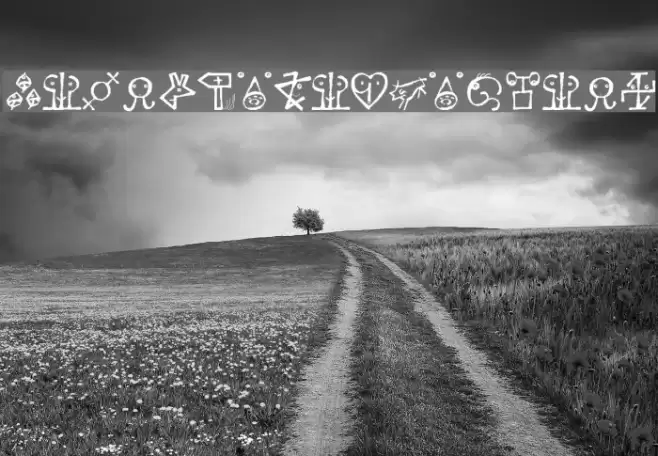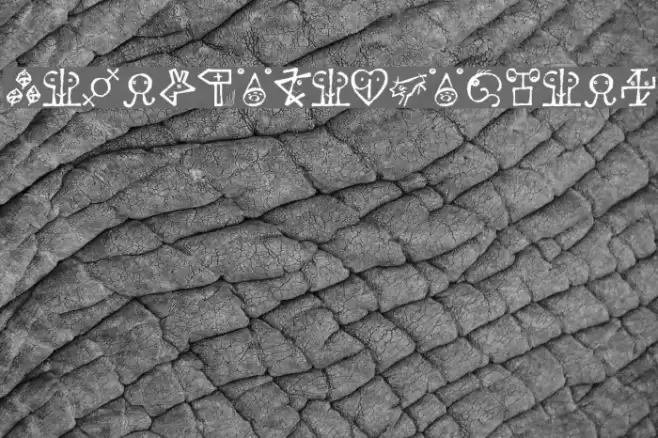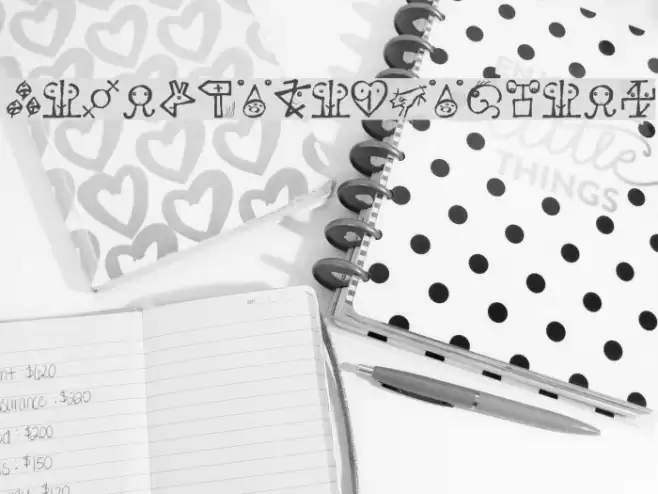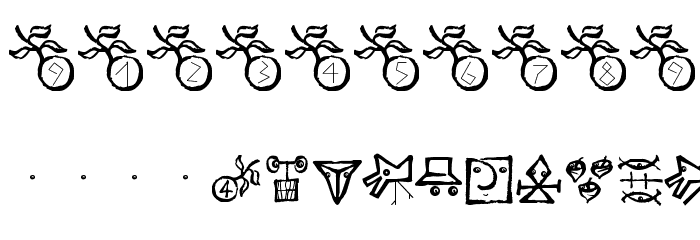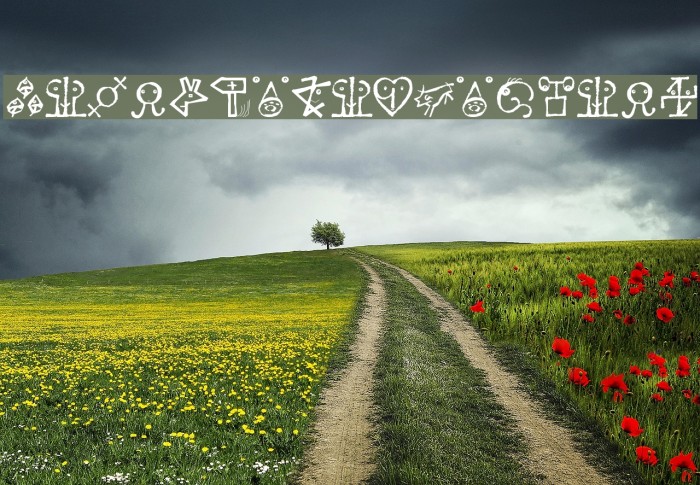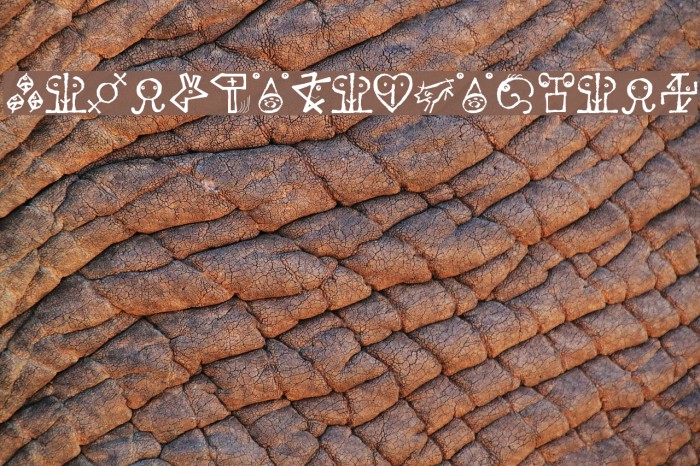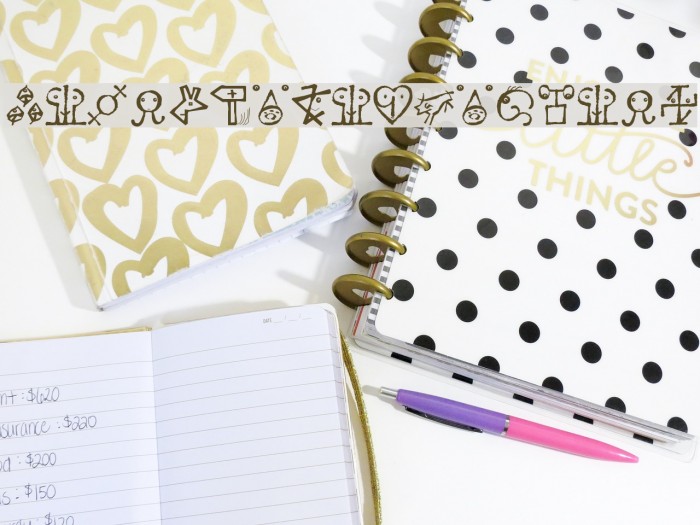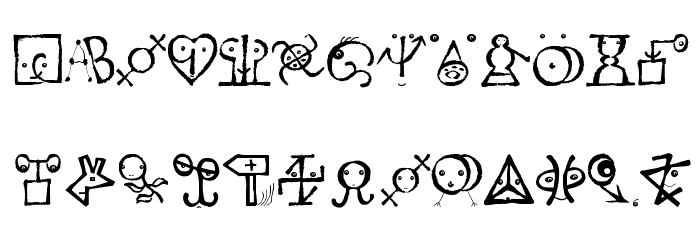
VectorizedSignets Font
VectorizedSignets Description
This collection features a series of highly stylized, abstract symbols that resemble ancient or tribal signets. Each character is unique, with intricate details and a hand-drawn appearance, giving them a rustic and artistic feel. The symbols are diverse, incorporating elements that suggest movement, nature, and abstract forms. The overall aesthetic is bold and expressive, making these symbols stand out as decorative elements. They are not traditional letters or numbers, but rather artistic representations that could be used for creative projects.
A collection of abstract, hand-drawn symbols with a tribal and artistic aesthetic from Uncategorized fonts.
- Proposed Projects: Ideal for use in graphic design projects, such as creating unique logos, artistic posters, or as decorative elements in digital art. They could also be used in branding for products that emphasize creativity and uniqueness.
- Use Case: Logos, Artistic projects, Decorative elements